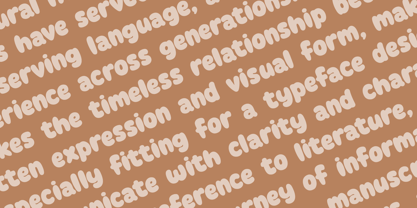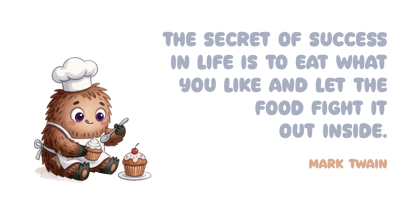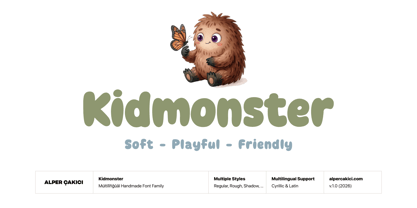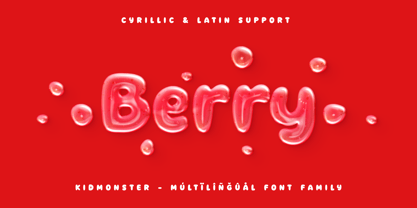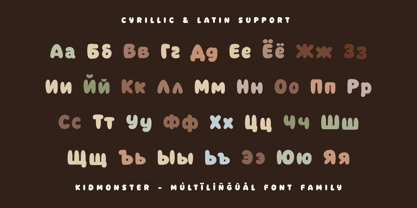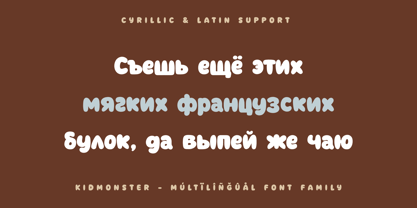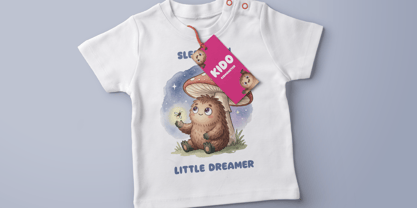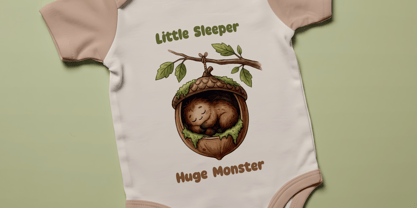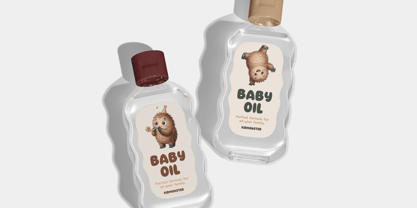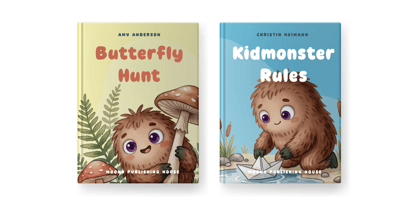
Kidmonster
Kidmonster is a bold handwritten display typeface family designed to bring playful energy, expressive character, and handcrafted personality to creative projects. Inspired by children's drawings, marker lettering, comic doodles, classroom chalkboards, and rough brush strokes, Kidmonster delivers an authentic handmade aesthetic while remaining highly legible across both print and digital media.
Kidmonster gives designers exceptional flexibility for creating unique visual identities.
Whether you're designing children's books, educational materials, comic titles, toy packaging, school projects, YouTube thumbnails, game graphics, posters, branding, merchandise, greeting cards, social media content, or playful advertising campaigns, Kidmonster adapts effortlessly to both fun and expressive typography.
Despite its handcrafted appearance, Kidmonster is engineered for professional use. Suitable for multilingual branding and international publishing.
Features
• Latin & Cyrillic language support
• 212 supported languages
• OpenType features
• Extensive punctuation and symbols
• Screen and print optimized
• Perfect for headlines and display typography
Kidmonster works beautifully in projects such as:
• Children's books
• Comics & graphic novels
• School and education materials
• Posters & flyers
• Logo design
• Branding
• Packaging
• Apparel & merchandise
• Stickers
• Greeting cards
• Social media graphics
• YouTube thumbnails
• Mobile games
• Board games
• Party invitations
• Creative crafts
If you're looking for a playful handwritten typeface packed with personality, texture, and versatility, Kidmonster is the perfect choice for bold, energetic, and memorable typography.